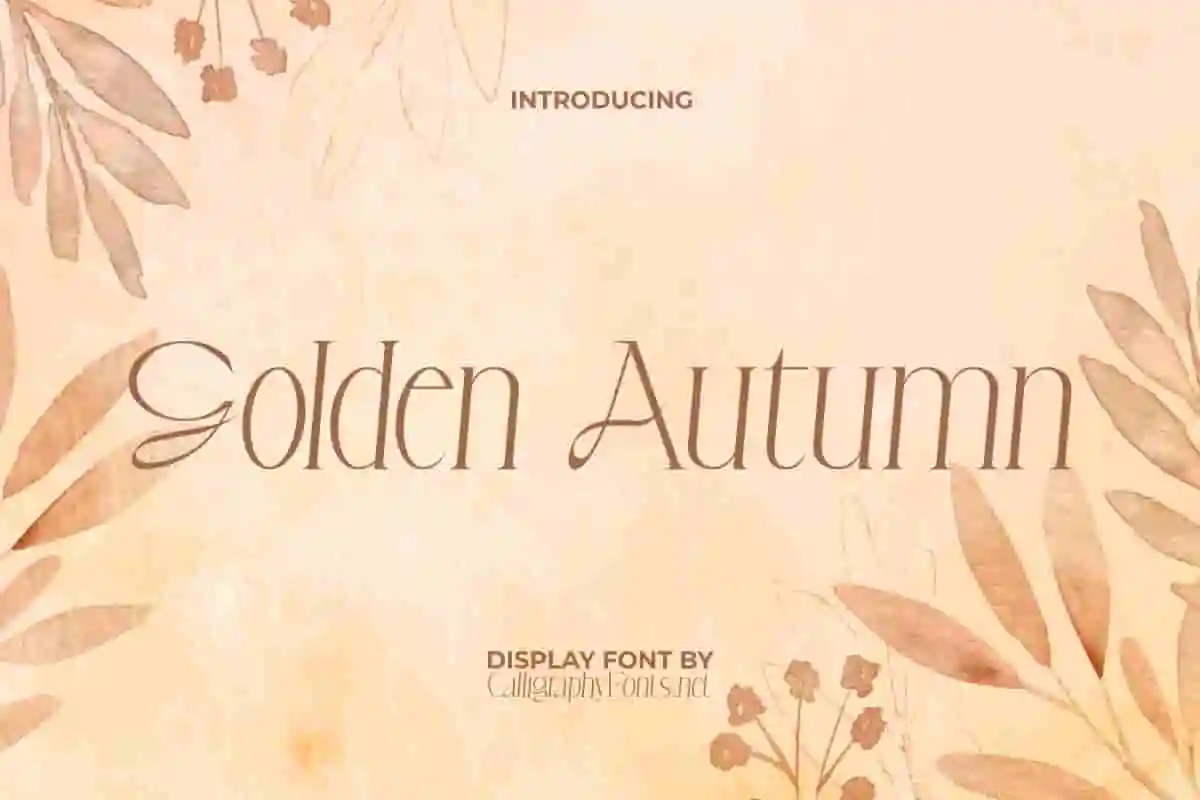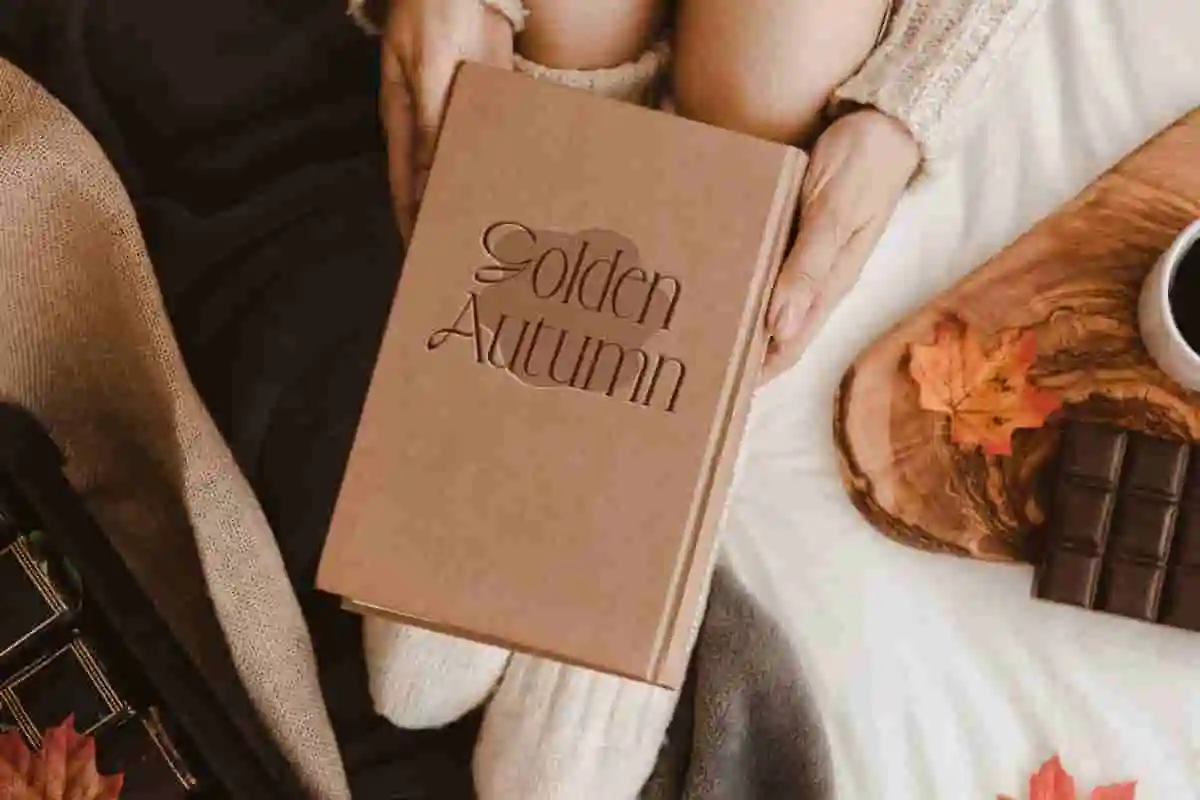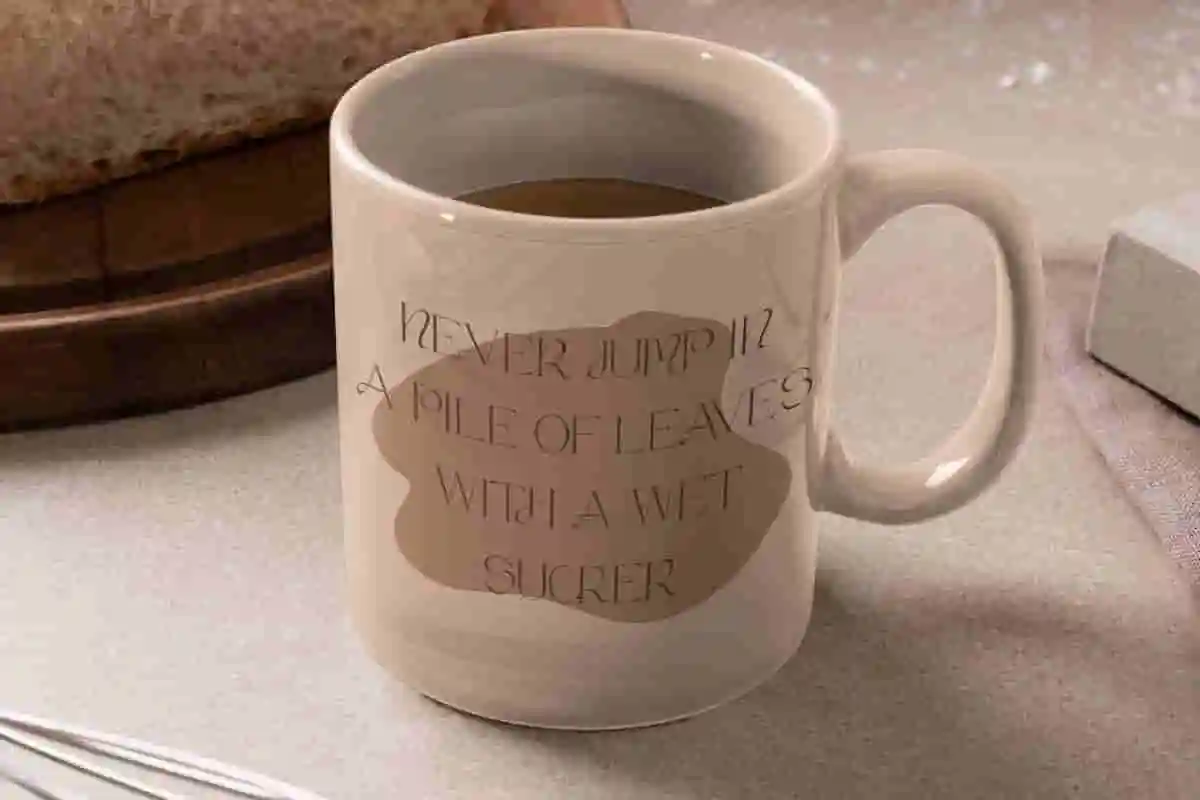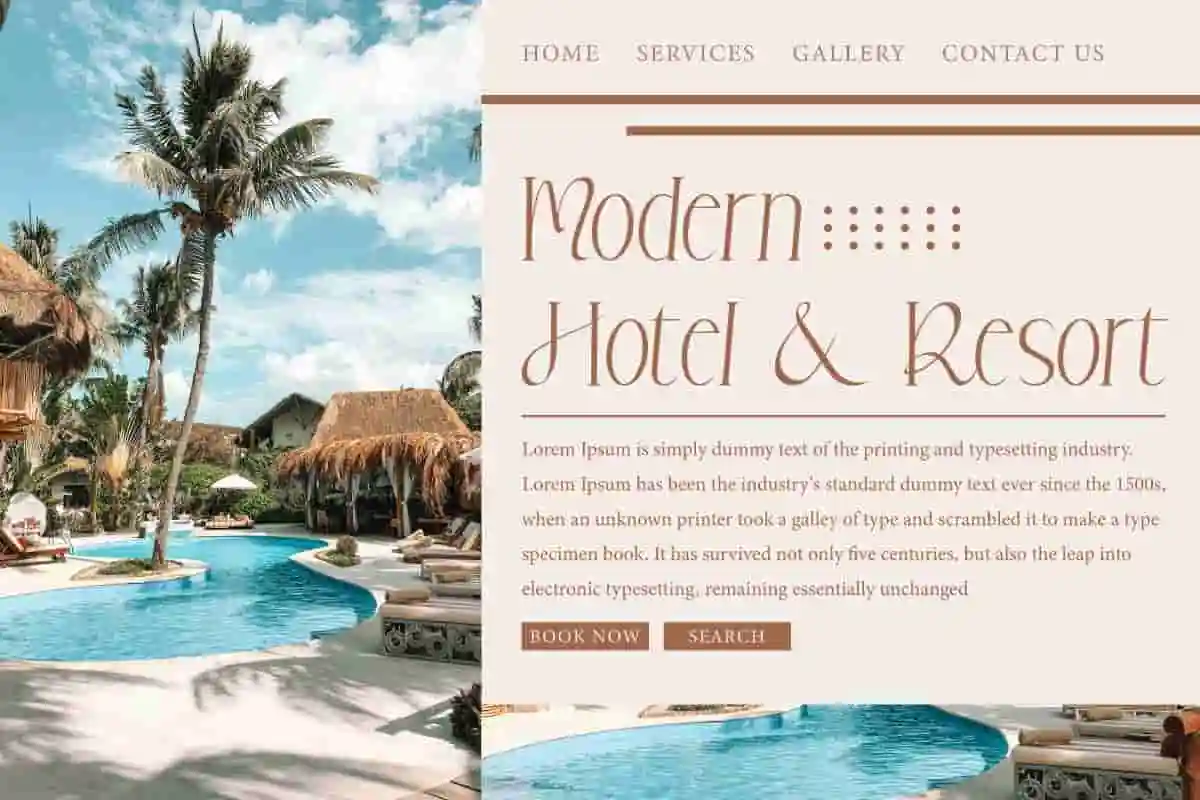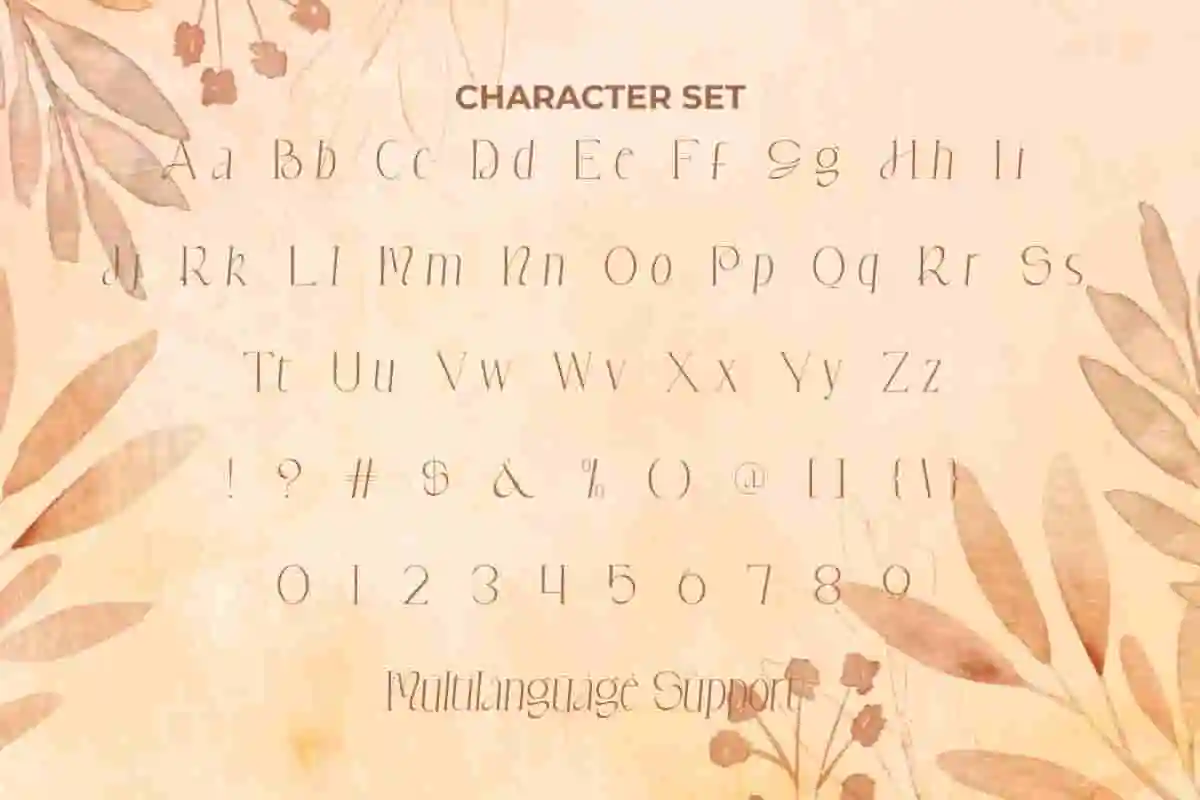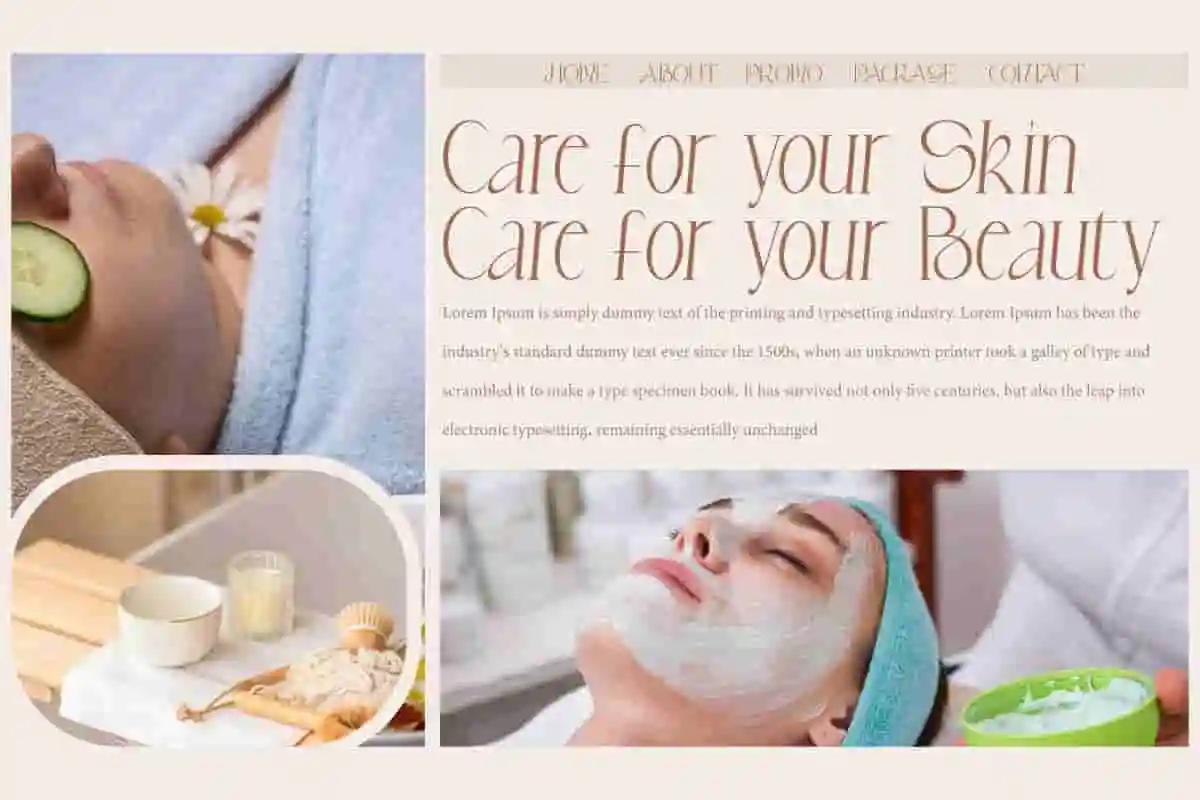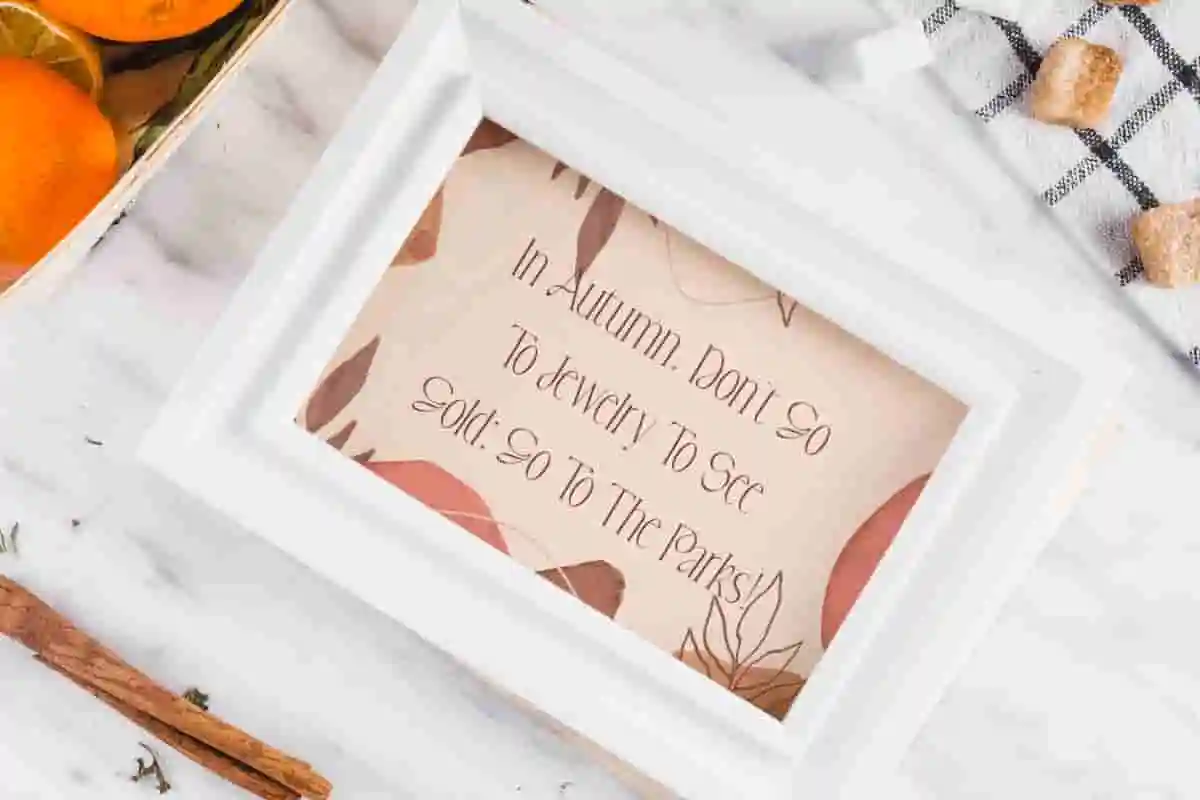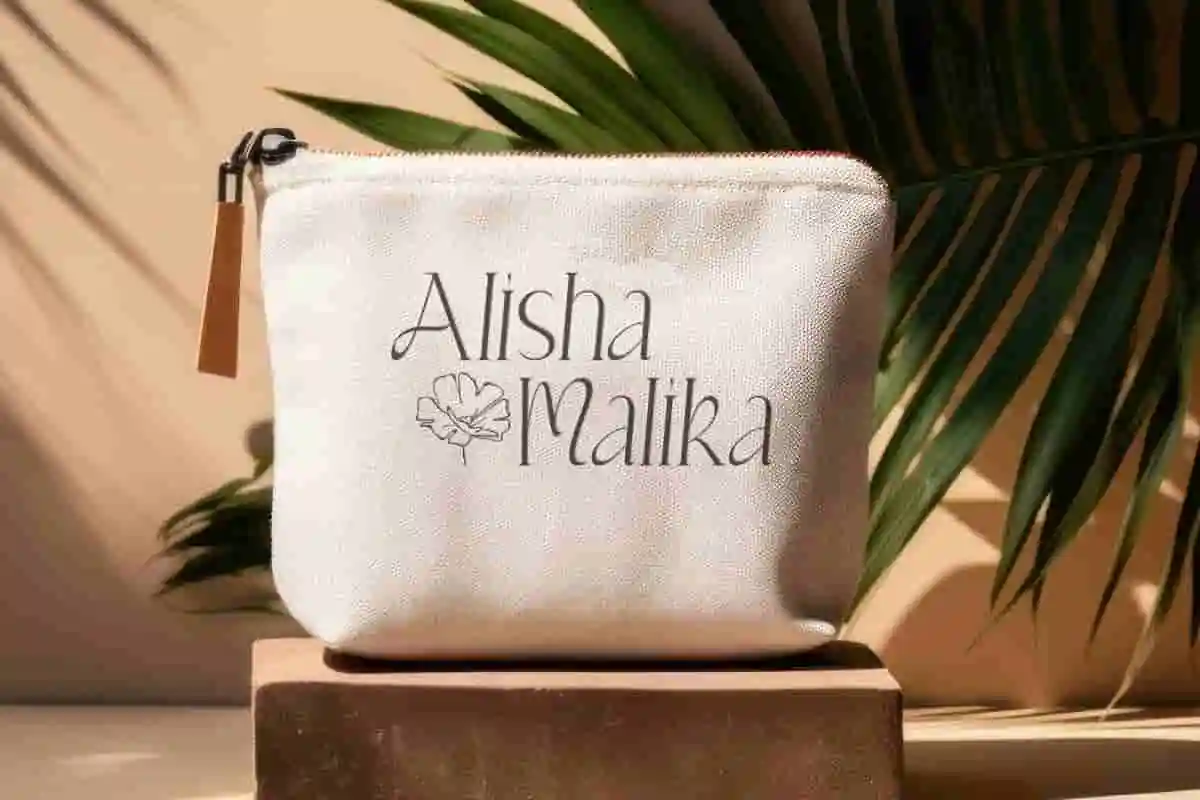
Golden Autumn Font
Golden Autumn Font is a gorgeous serif display font that is packaged authentically and modernly. It will be suitable for many purposes.
Golden Autumn Font is a gorgeous serif display font with a minimalist and charming visual elegance. Designed specifically for blogs, brochures, covers, flyer, headers, logo, quotes, screen print, template designs, titles, websites, and much more. This font is so awesome that it will match any type of font, it can be a script with an elegant style.
Bring the warmth and charm of fall into your designs with Golden Autumn Display Font, a stunning typeface inspired by the beauty of the autumn season. This font combines natural elegance with artistic details, making it the perfect choice for projects that need a touch of coziness, sophistication, and creativity.
Golden Autumn Display Font has a beautiful and balanced curve of letters, the design will look very unique and attractive if combined properly. This modern font with a warm feel will add a classy and neat touch to your design. Works wonderfully on its own for cafes, clothing brand, fashion, graphic design, home furniture, lodging, photography, printing, publishing, restaurant, spa salon, and more.